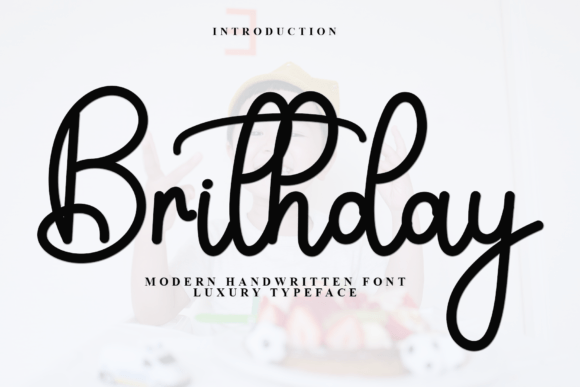
The Birth of a Beautiful Font: Celebrating with “Birthday”
I still remember the design project that led me to discover the stunning “Birthday” font. I was working on a custom birthday card for a client’s milestone birthday, and I was determined to make it perfect. As I scrolled through font after font, nothing seemed quite right – until I stumbled upon “Birthday”. Its elegant, handwritten curves and luxurious feel immediately captured my attention, and I knew I had found the perfect fit.
So, what makes “Birthday” so special? Here are a few things that I absolutely love:
- ✨ Luxurious and elegant feel: The font’s smooth, flowing letters add a touch of class to any project.
- ✅ Perfect for special occasions: Whether it’s a birthday, anniversary, or wedding, “Birthday” font makes any celebration feel more memorable.
- 💫 Versatile and adaptable: From digital designs to print materials, this font works beautifully across various mediums.
- 🤔 Limited use of uppercase letters: While the font’s uppercase letters are beautiful, they can be a bit inconsistent – use them sparingly for emphasis.
- ⚠️ Requires OpenType features: To get the most out of “Birthday”, you’ll need to use OpenType features – more on that later.
The Story Behind “Birthday”
While the true story behind “Birthday” remains a mystery, it’s easy to imagine that it was created by a talented designer with a passion for elegant typography. Perhaps they were inspired by the flowing scripts of luxury brands or the whimsical curves of hand-painted signs. Whatever the inspiration, “Birthday” is a true gem that brings a touch of sophistication to any design.
| Font Name | Brithday Font |
| What makes “Birthday” font so special? | Its elegant, handwritten curves and luxurious feel make it perfect for special occasions and high-end designs. |
| Is “Birthday” suitable for digital designs? | Absolutely! “Birthday” works beautifully in digital designs, from social media graphics to website headers. |